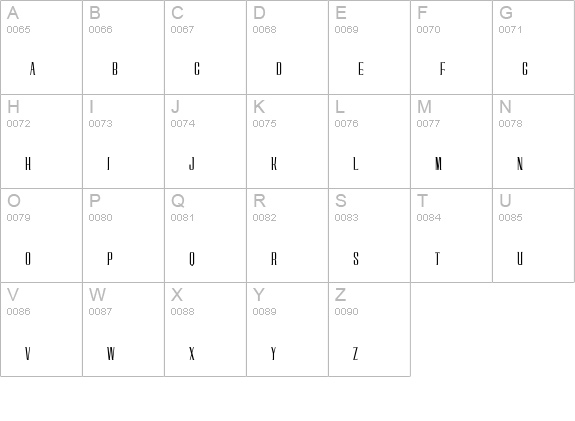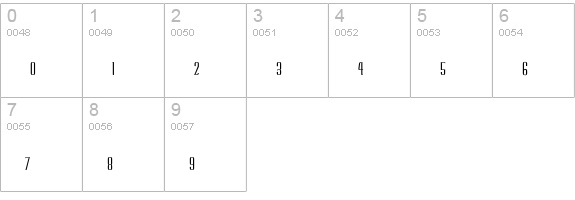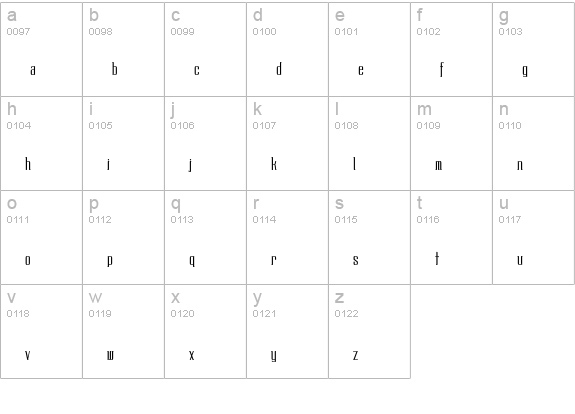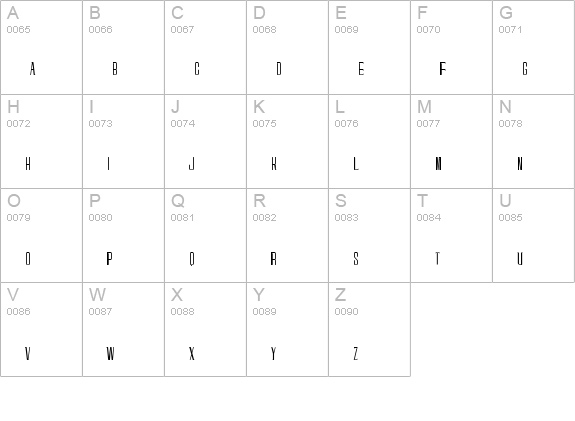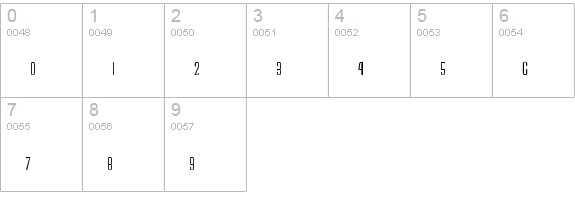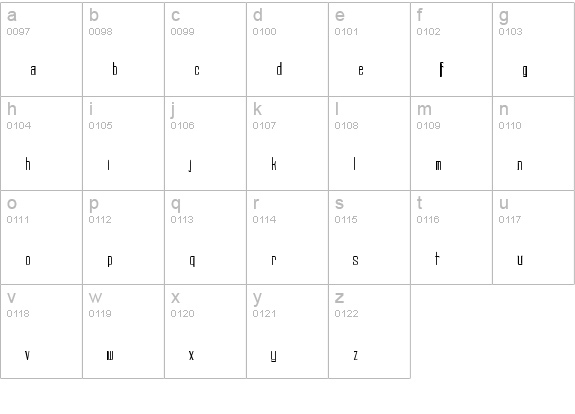
LTechnique font is a modern and stylish typeface that brings a contemporary touch to any design project. With its sleek lines and elegant curves, this font is perfect for creating eye-catching headlines, logos, and branding materials. The versatility of LTechnique font allows it to be used in various design applications, from print to digital media. What's even better is that LTechnique font is completely free to download at FontsMarket.com. Whether you are a designer looking to add a fresh new font to your collection or a business owner wanting to enhance your branding, LTechnique font is the perfect choice. Download it today and elevate your designs with this stunning and versatile typeface.